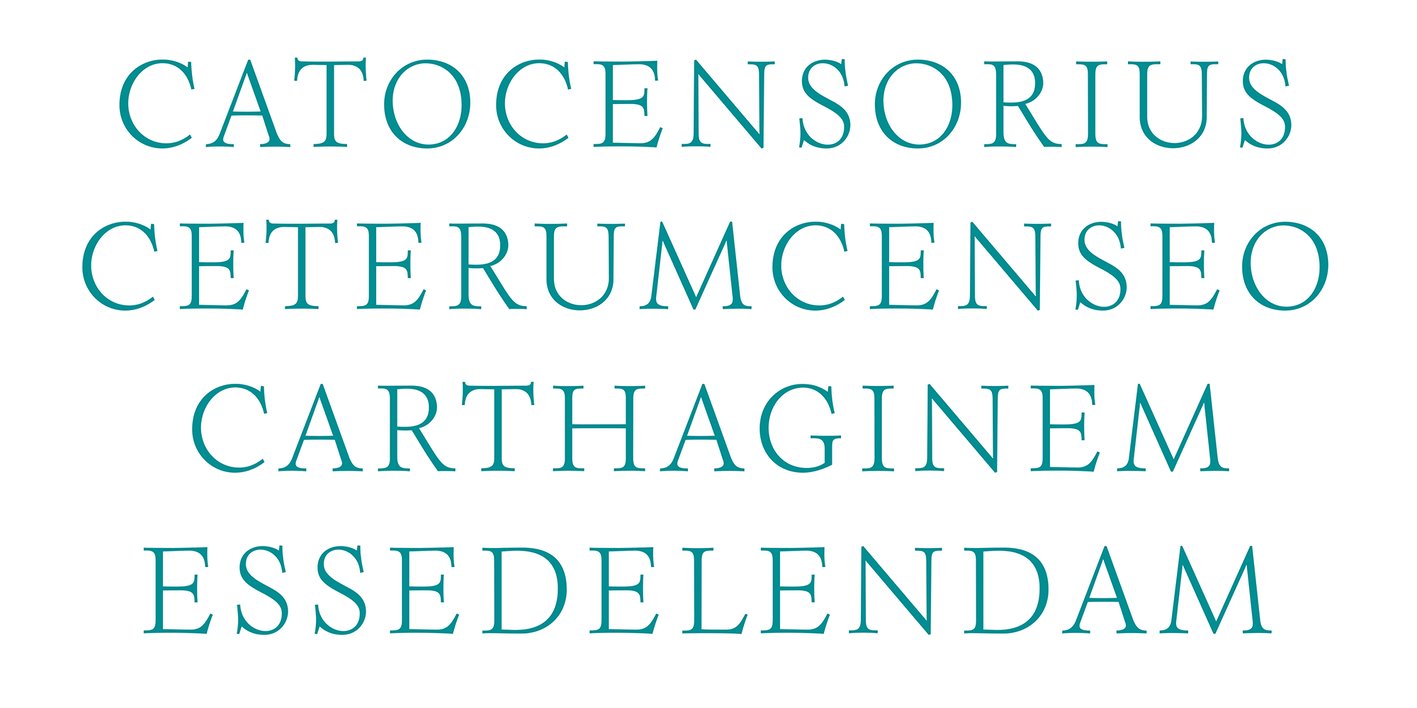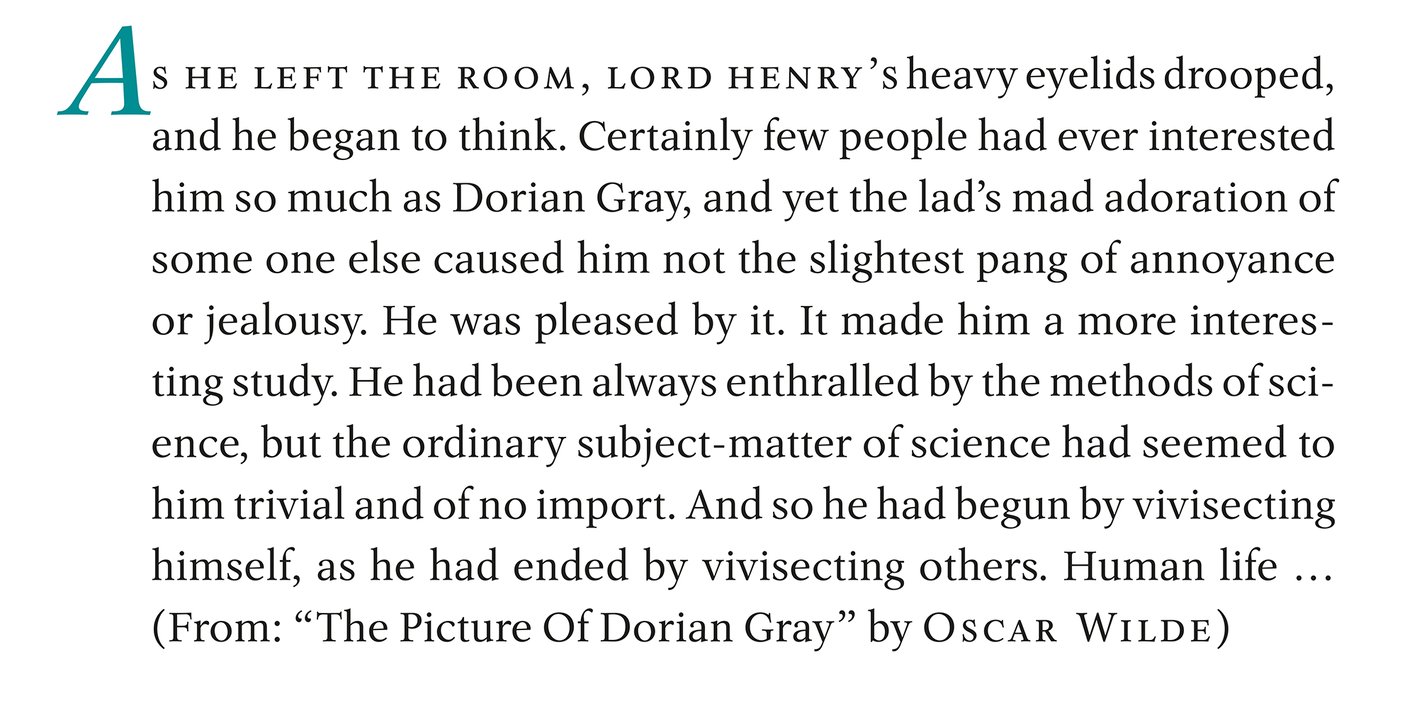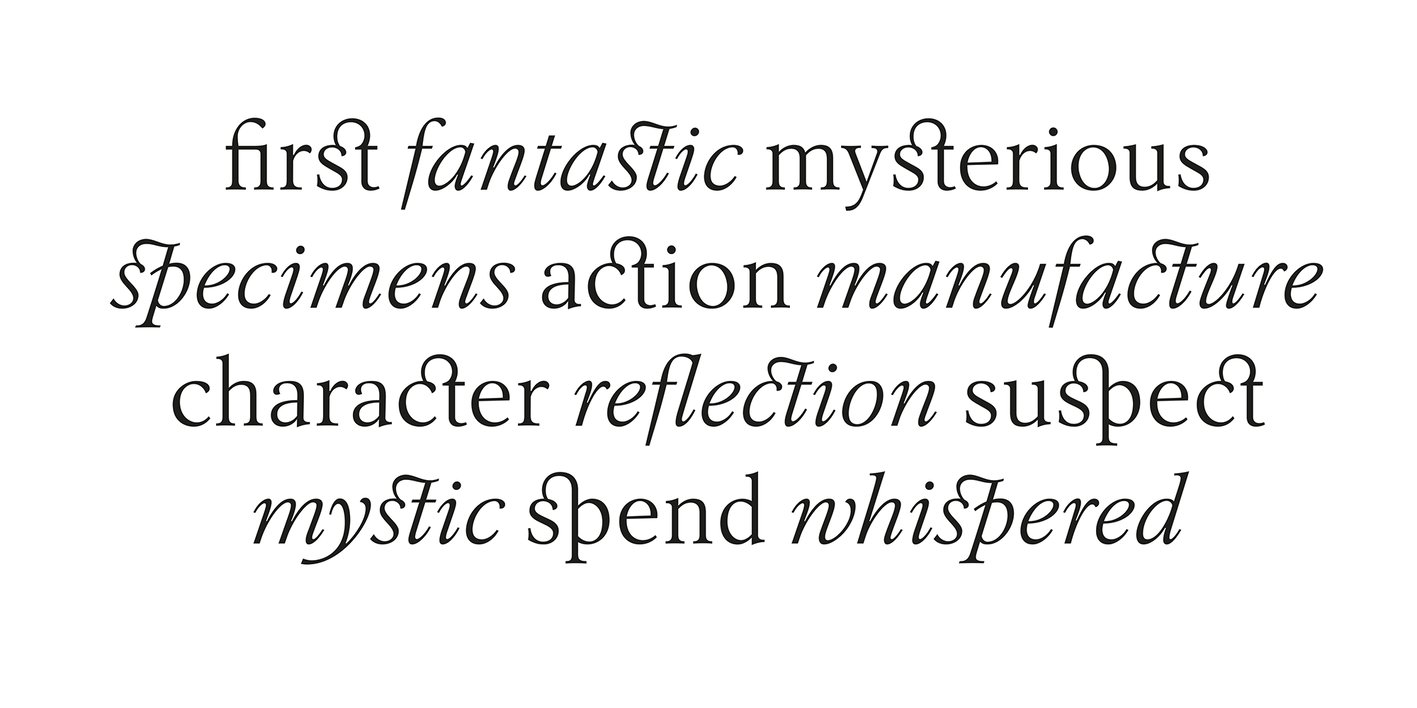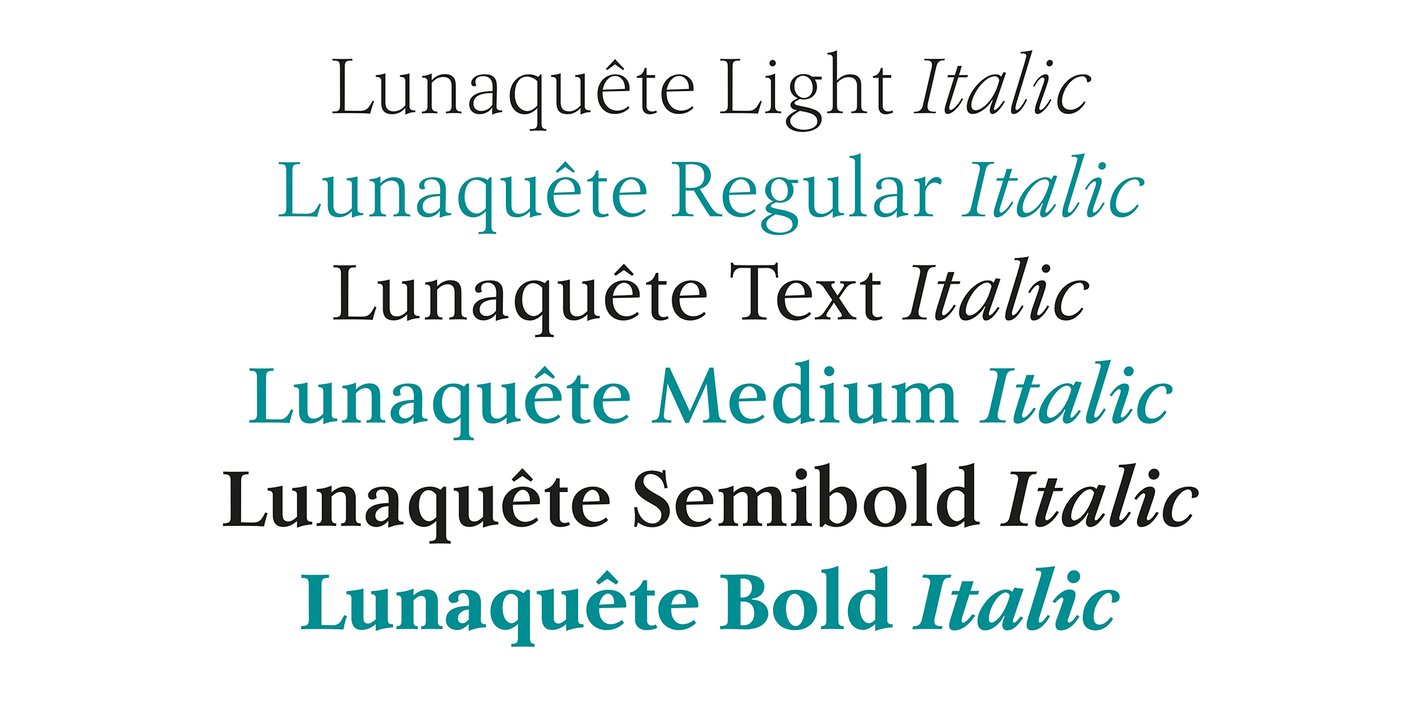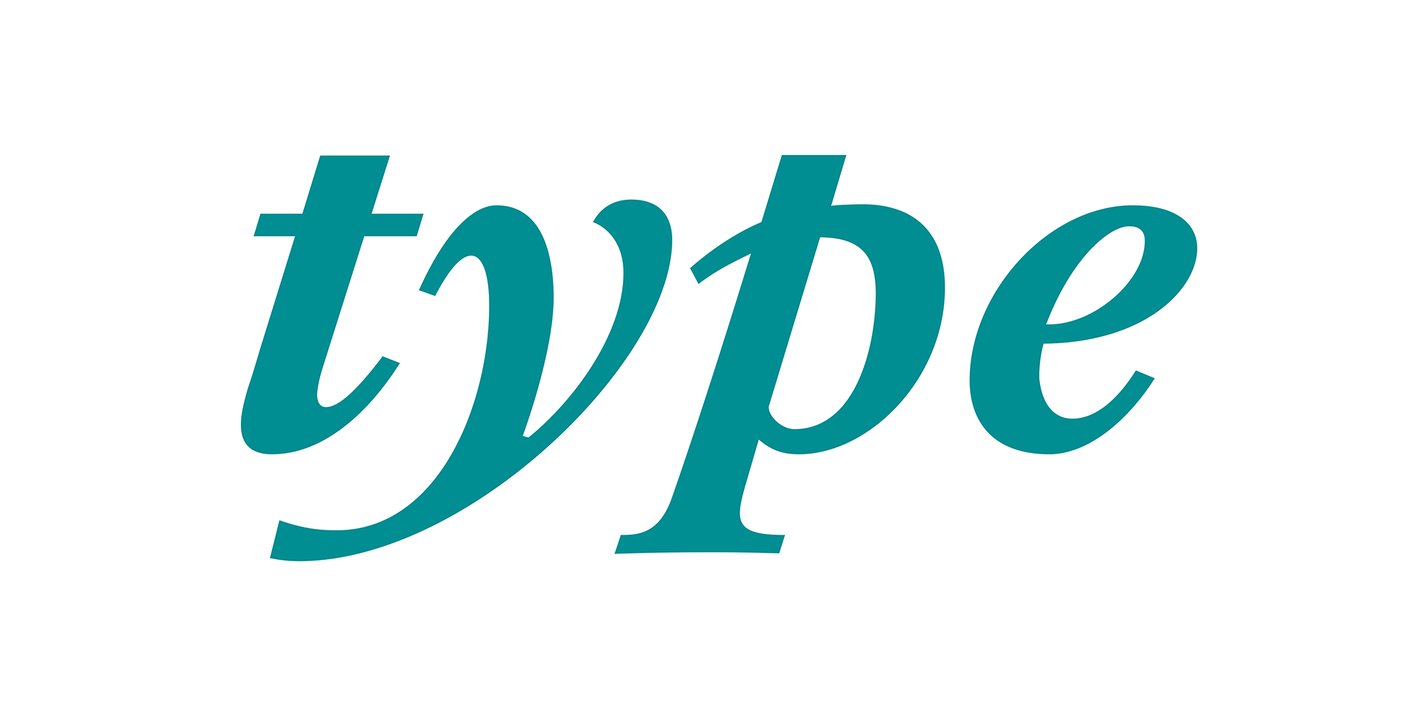
Lunaquete Font
The Lunaquête family is a collection of Serif fonts with 6 styles and true Italics. It was designed for book typography. Especially Regular and Text are suitable for this purpose. Medium, Semibold and Bold can be used for text highlighting. Light and Light Italic are suitable for headlines.